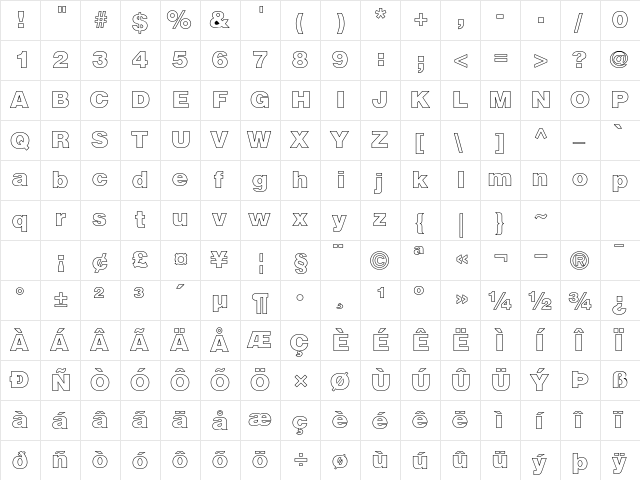
Helvetica Black Hollow Regular
Design Context for Helvetica Black Hollow Typeface
Helvetica Black Hollow offers clean, dependable letterforms without strong stylistic allegiance, making it a practical choice for designers who need flexibility.